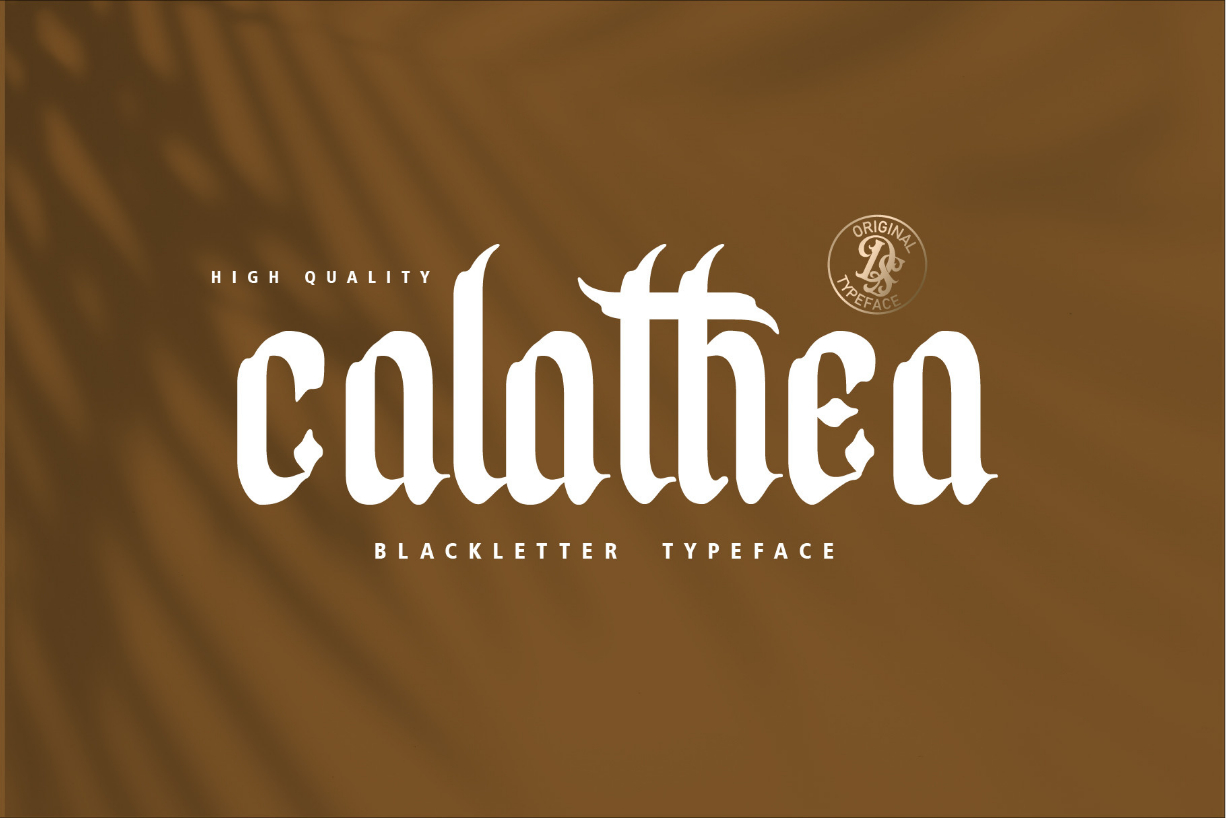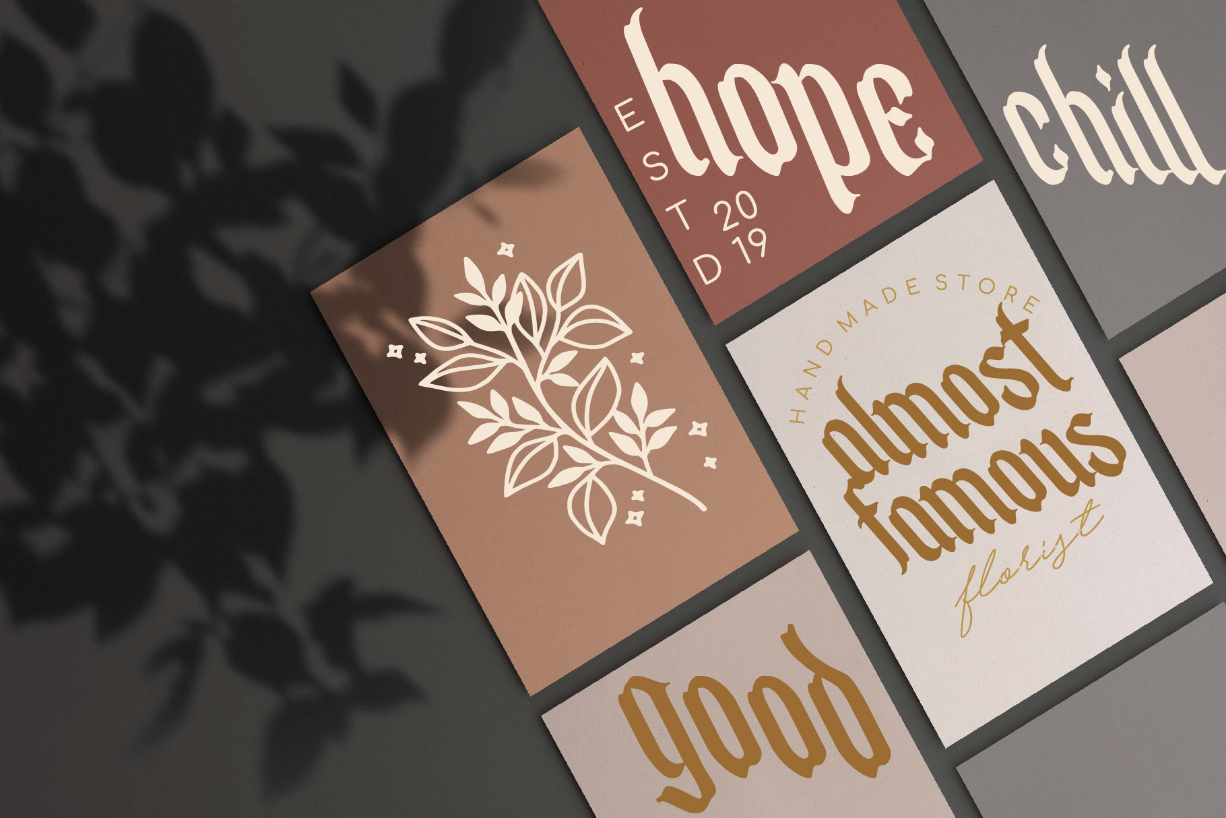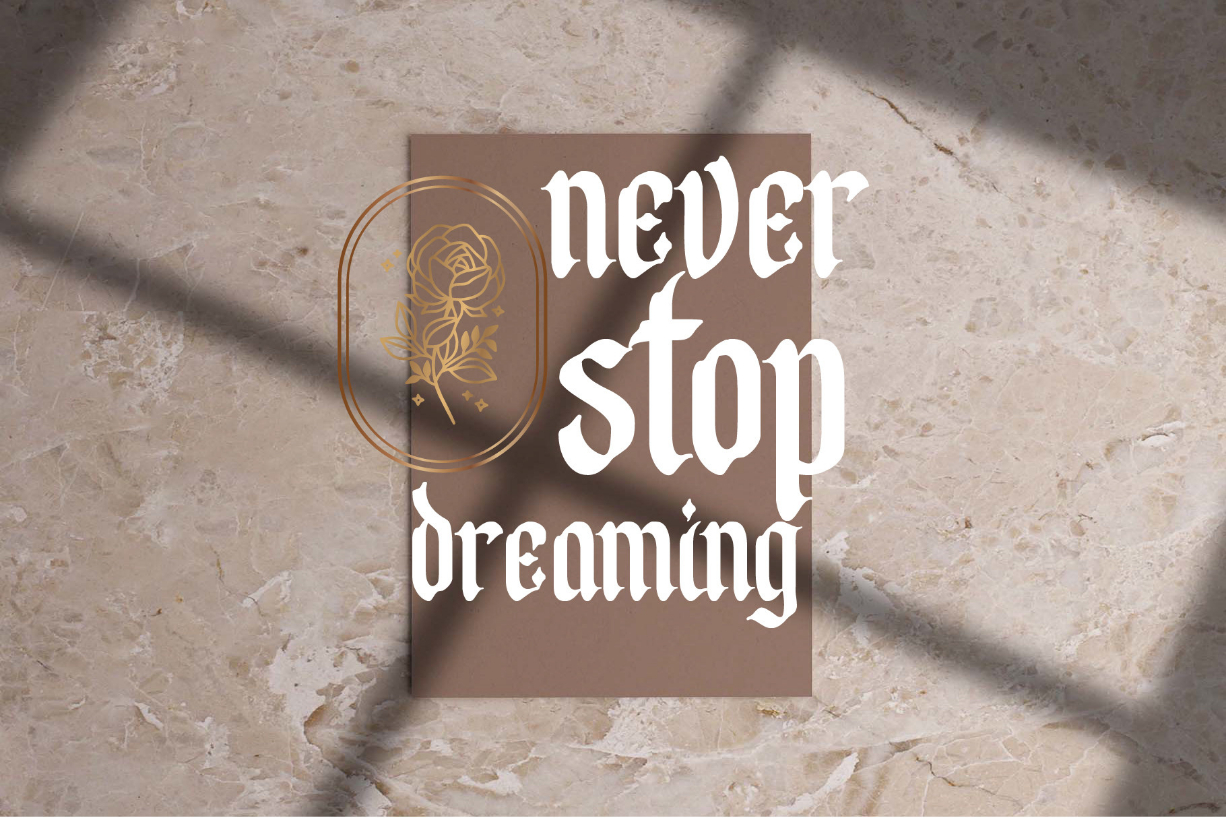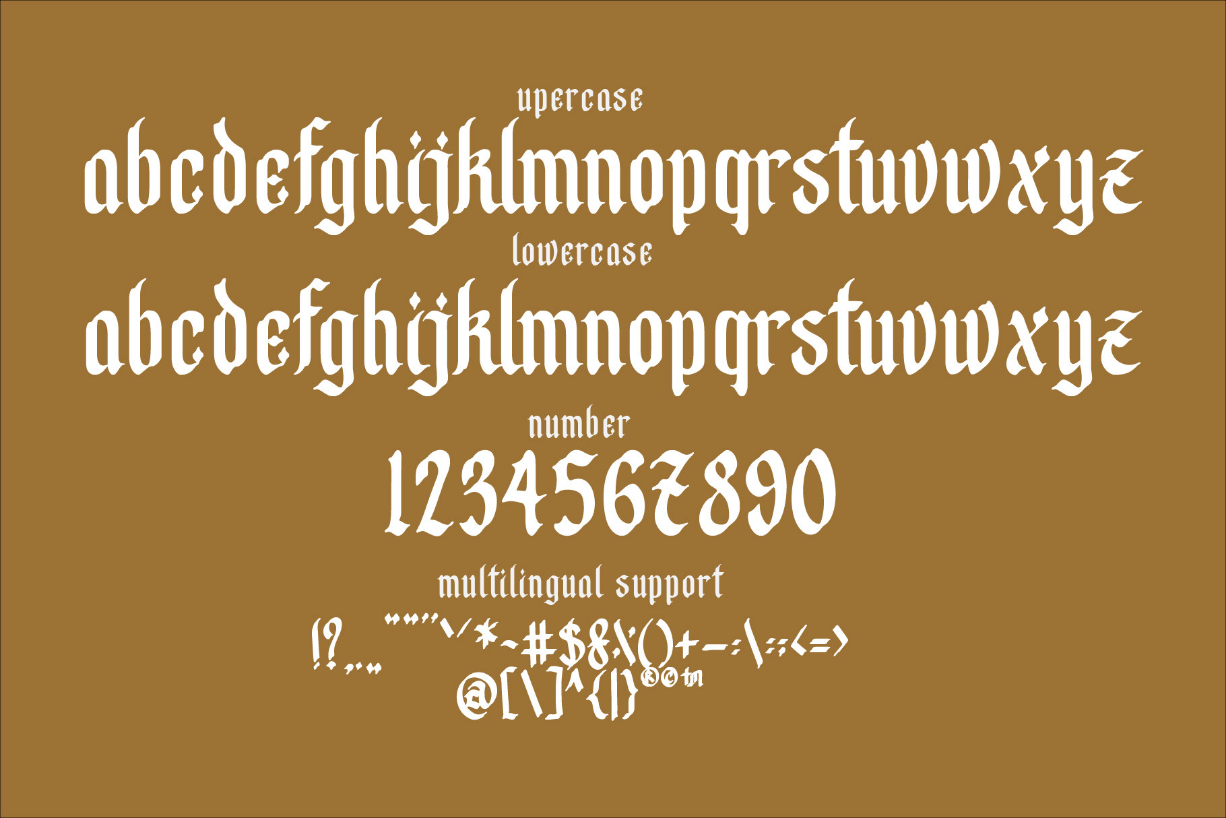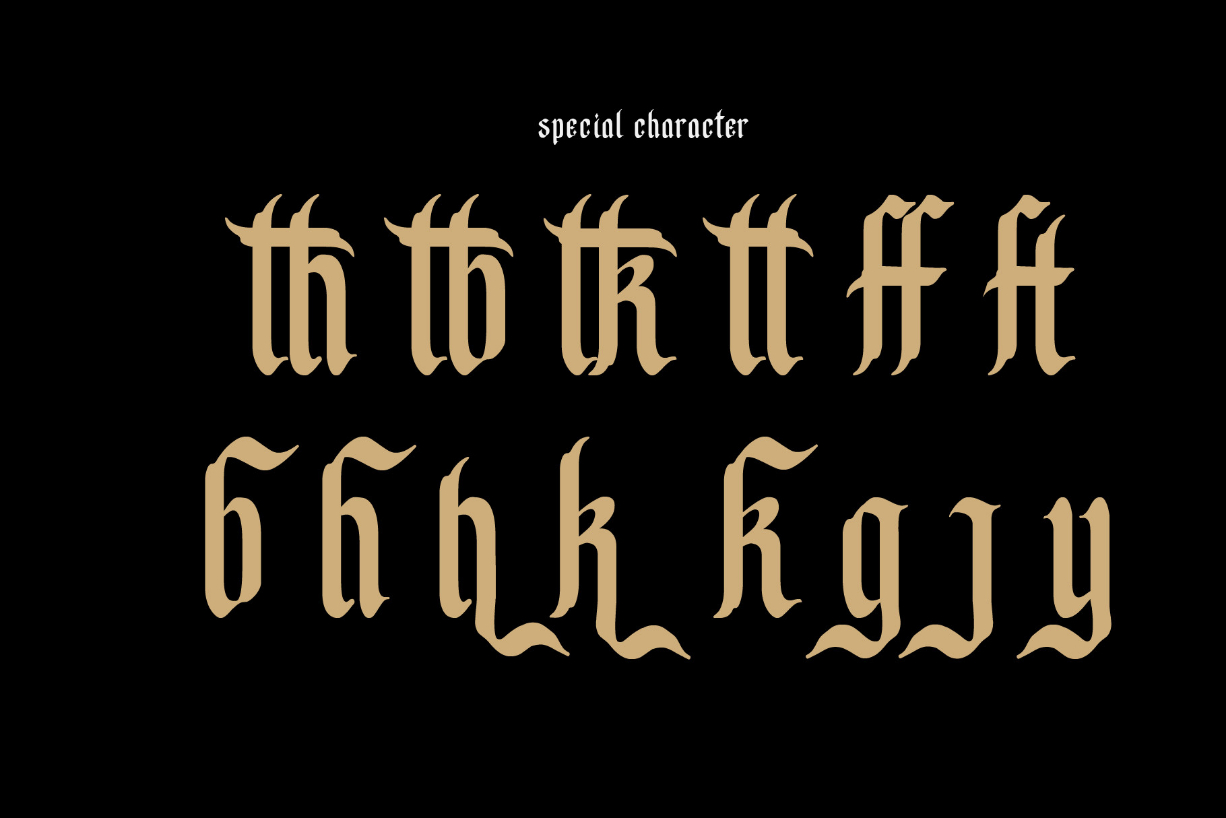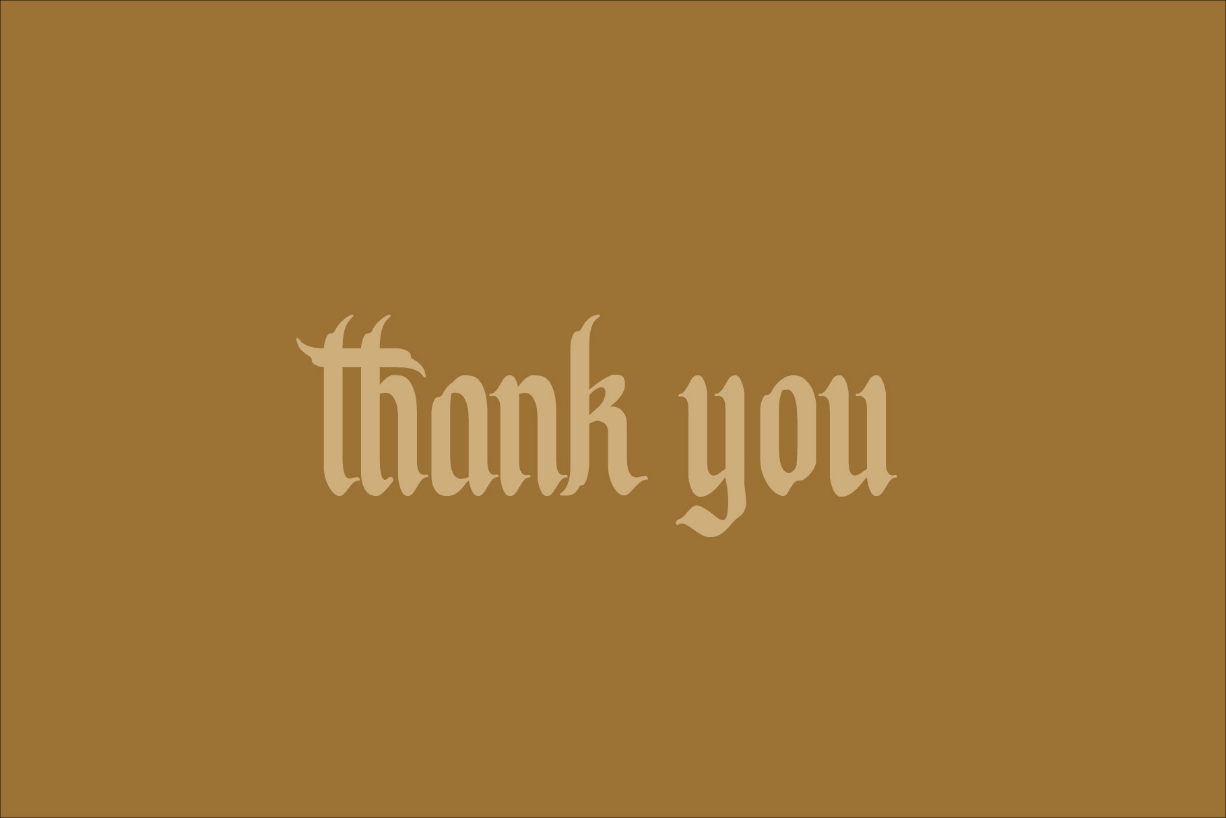
Calathea Font
About Calathea Font
Calathea is a beautiful, detailed and elegant blackletter font. This unique font will effortlessly turn any design project into a stand out! The only limit is your imagination!